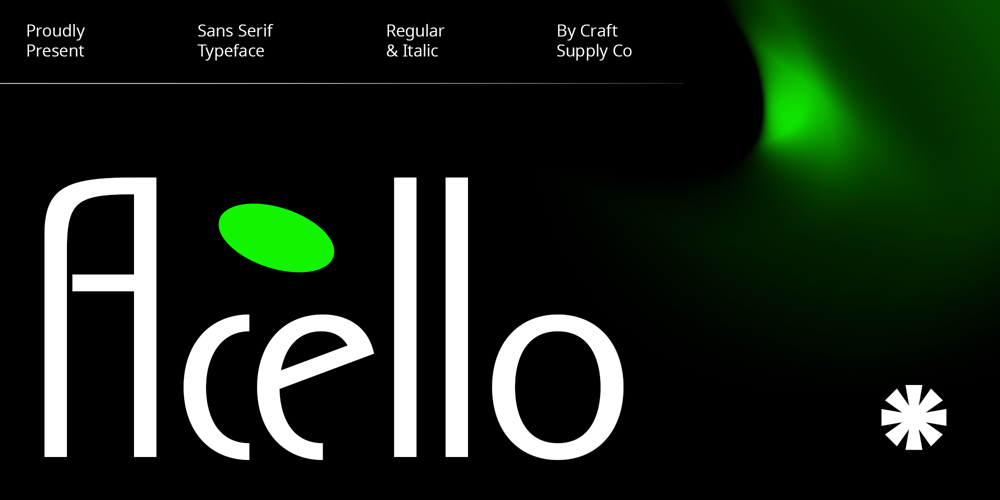
Acello Font Family was designed by Trio Nazzar Saputra, Wahyu Hadi Yuana and published by Craft Supply Co. Acello contains 8 styles and family package options. Acello – Geometric Sans Serif FontModern SimplicityAcello, the Geometric Sans- serif font, effortlessly infuses modern simplicity into your display designs. Clean lines and a sleek aesthetic captivate your audience, ensuring a contemporary appeal.Versatile EleganceCrafted for diverse display purposes, Acello seamlessly adapts, adding a touch of versatile elegance to logos, headlines, and more. Its adaptability ensures a refined look for any visual project.Readability RedefinedPrioritizing clarity, Acello’s balanced proportions enhance readability. Each character is meticulously crafted for optimal legibility, ensuring your message is clear and accessible to all.